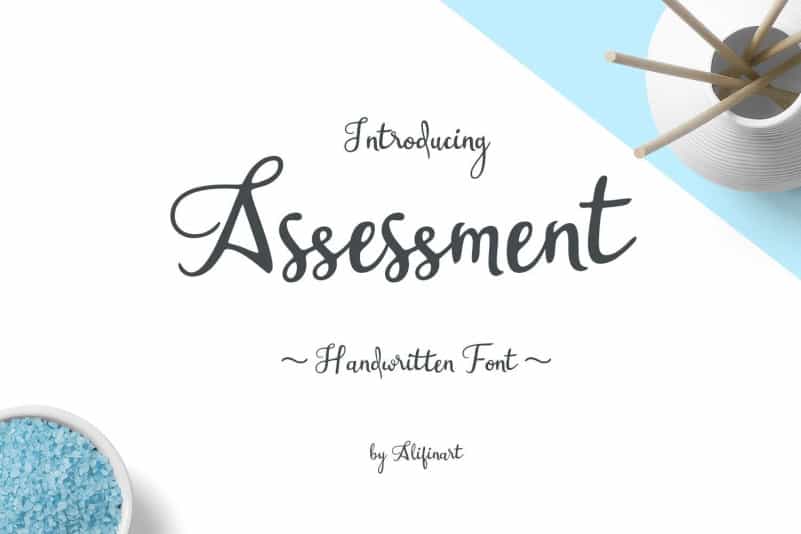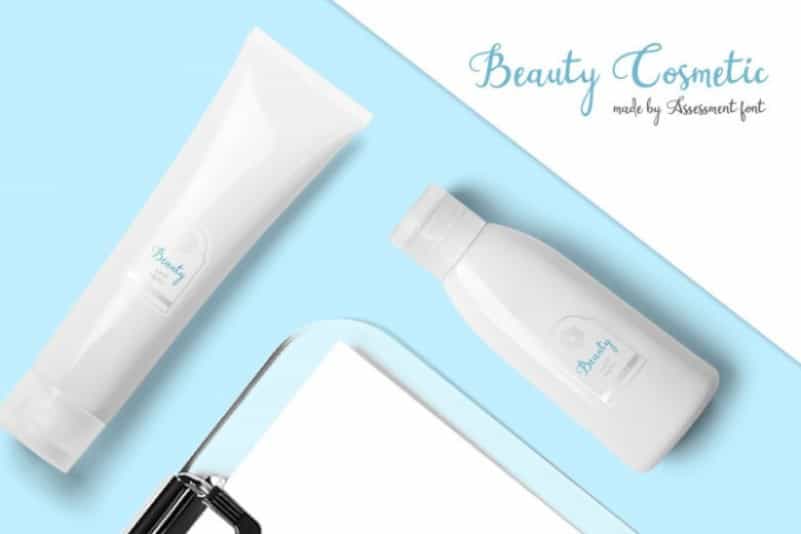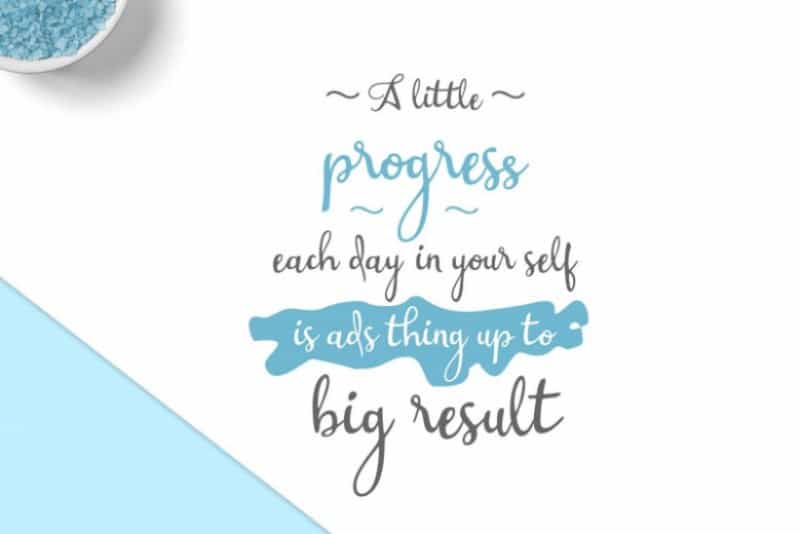
Discover Assessment Calligraphy Font, part of the Calligraphy Handwritten collection—a versatile and unique font perfect for adding a personal touch to your projects. Download it for free and enjoy crafting designs with style, from invitations to social media posts. This font is available exclusively for personal use, giving you the freedom to create without limits. Unlock your creativity with Assessment Calligraphy Font today!
Assessment Font a new fresh and modern script with a handmade calligraphy style, decorative characters and a dancing baseline! It is so, the invitation looks like greeting card, branding materials, business cards, quotes and posters.